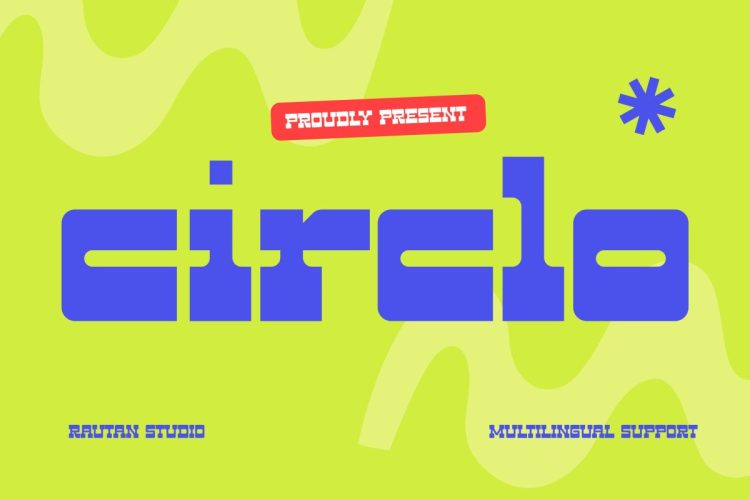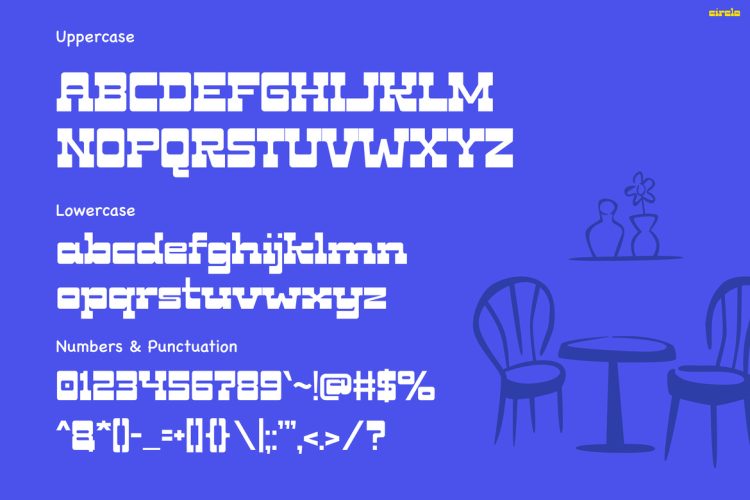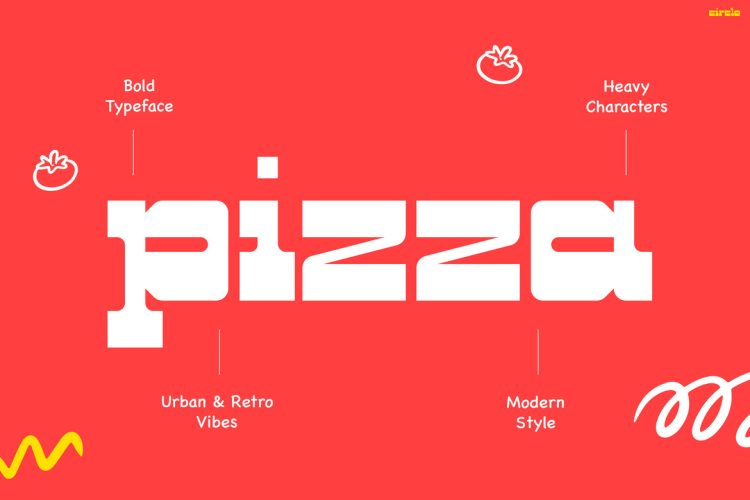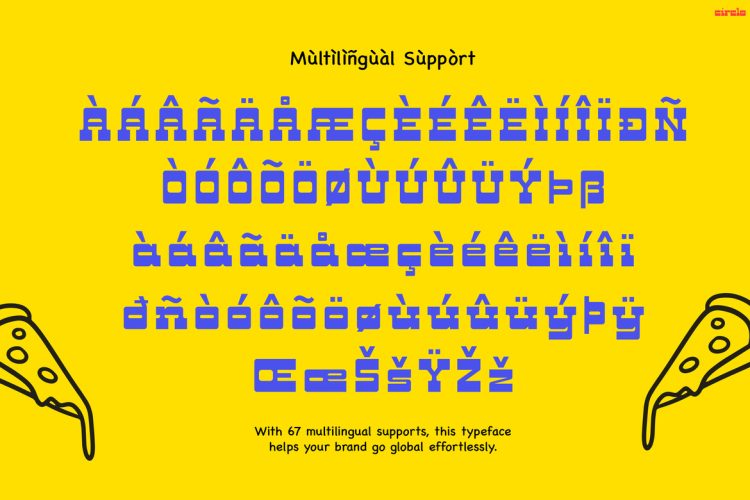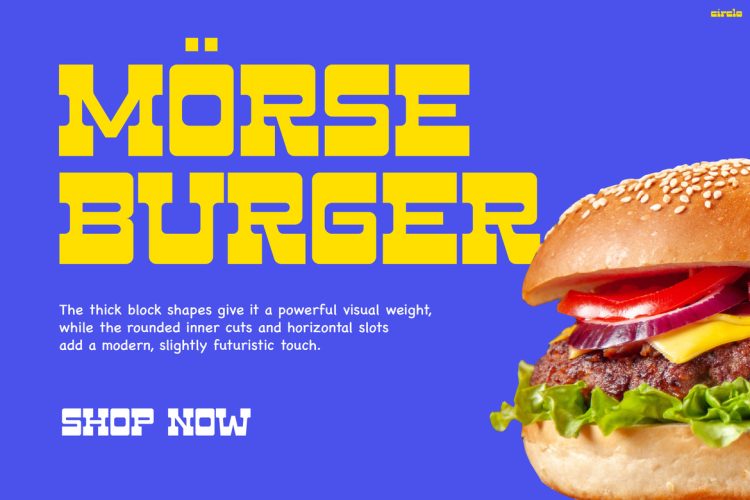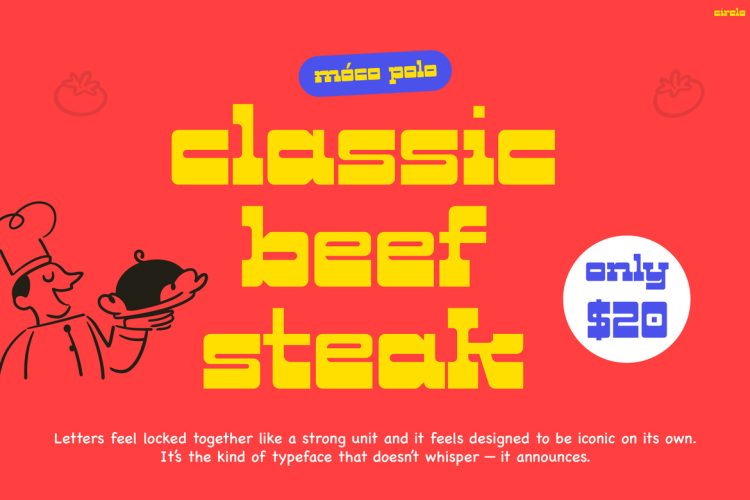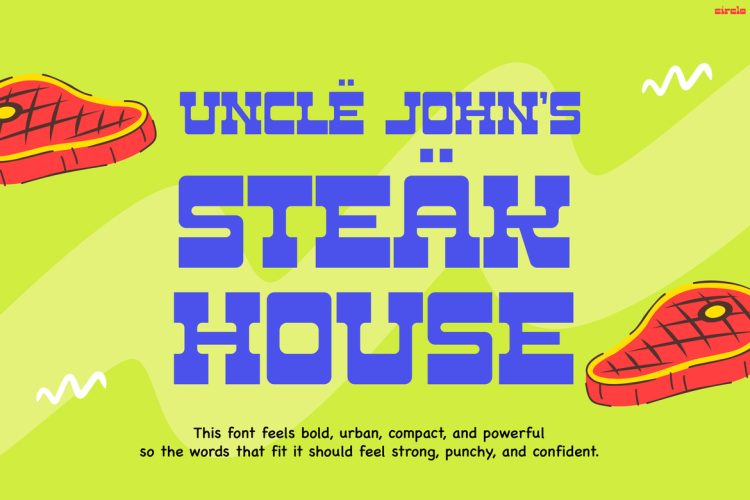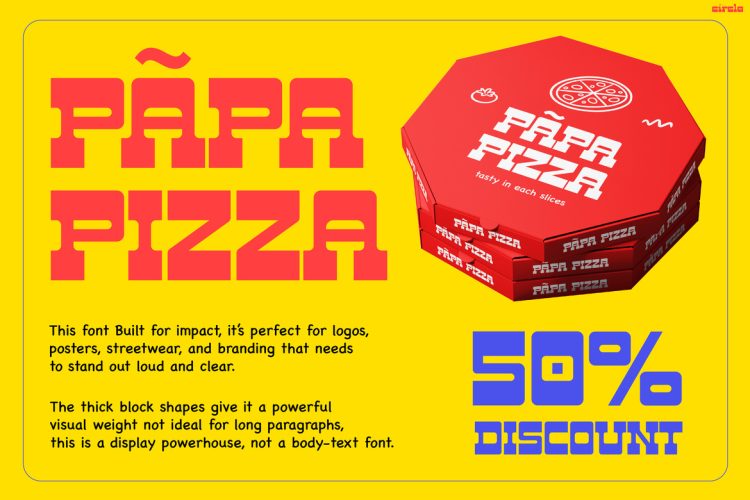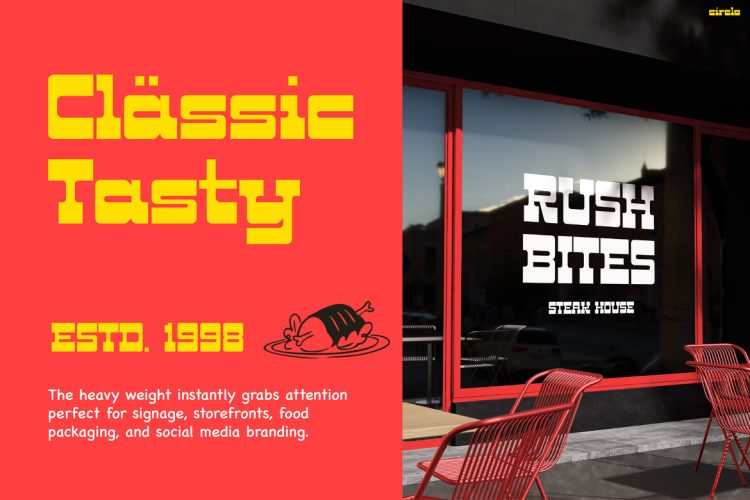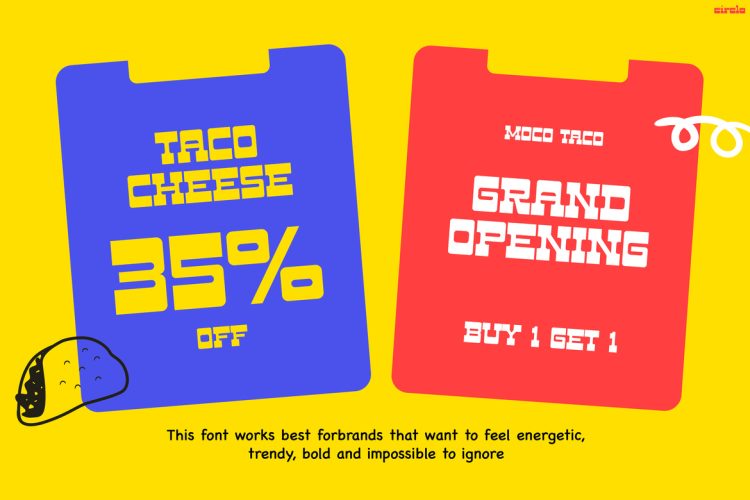
Retro Font CIRCLO โ Retro Energy That Pops!
Retro Font CIRCLO is a bold, eye-catching display font that instantly brings playful retro energy into your designs. With its chunky geometric shapes, strong curves, and vibrant personality, this font stands out effortlessly across any layout. It blends vintage charm with a modern twist, making every word feel dynamic, fun, and highly readable. Moreover, its thick letterforms create strong visual impact, while the clean structure keeps everything crisp and professional. As a result, Retro Font CIRCLO works perfectly for designs that need to grab attention fast and leave a lasting impression. Plus, with support for 67 languages, it gives you the flexibility to reach a global audience without limits.
Retro Font CIRCLO delivers a perfect balance between playful aesthetics and functional design. Not only does it bring bold visual energy, but it also maintains excellent readability across various formats. The rounded yet structured letterforms make it ideal for large headlines, while still performing well in creative layouts. In addition, its retro-inspired style adds warmth and personality, making your designs feel more engaging and approachable. Whether you’re creating digital content or print materials, this font helps elevate your visual storytelling with ease.
Suitable For
This font is perfect for graphic designers, branding specialists, and creative entrepreneurs who want to create standout visuals. It works especially well for food branding, restaurant menus, posters, packaging, social media content, kids-themed designs, and retro-style campaigns. Furthermore, itโs ideal for anyone looking to add a bold, fun, and memorable touch to their projects without sacrificing clarity.